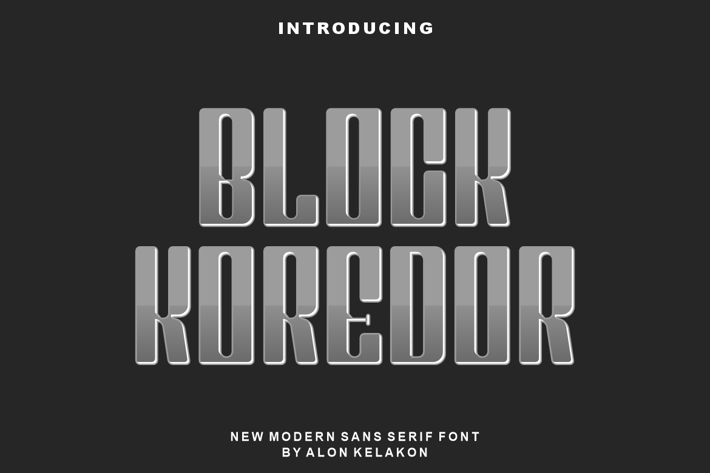
Block Koredor Font
Block Koredor Font is unique . Ready to use for your design like labeling, clothing, movie sceen, poster, movie title, gigs, album covers, logos, and much more.